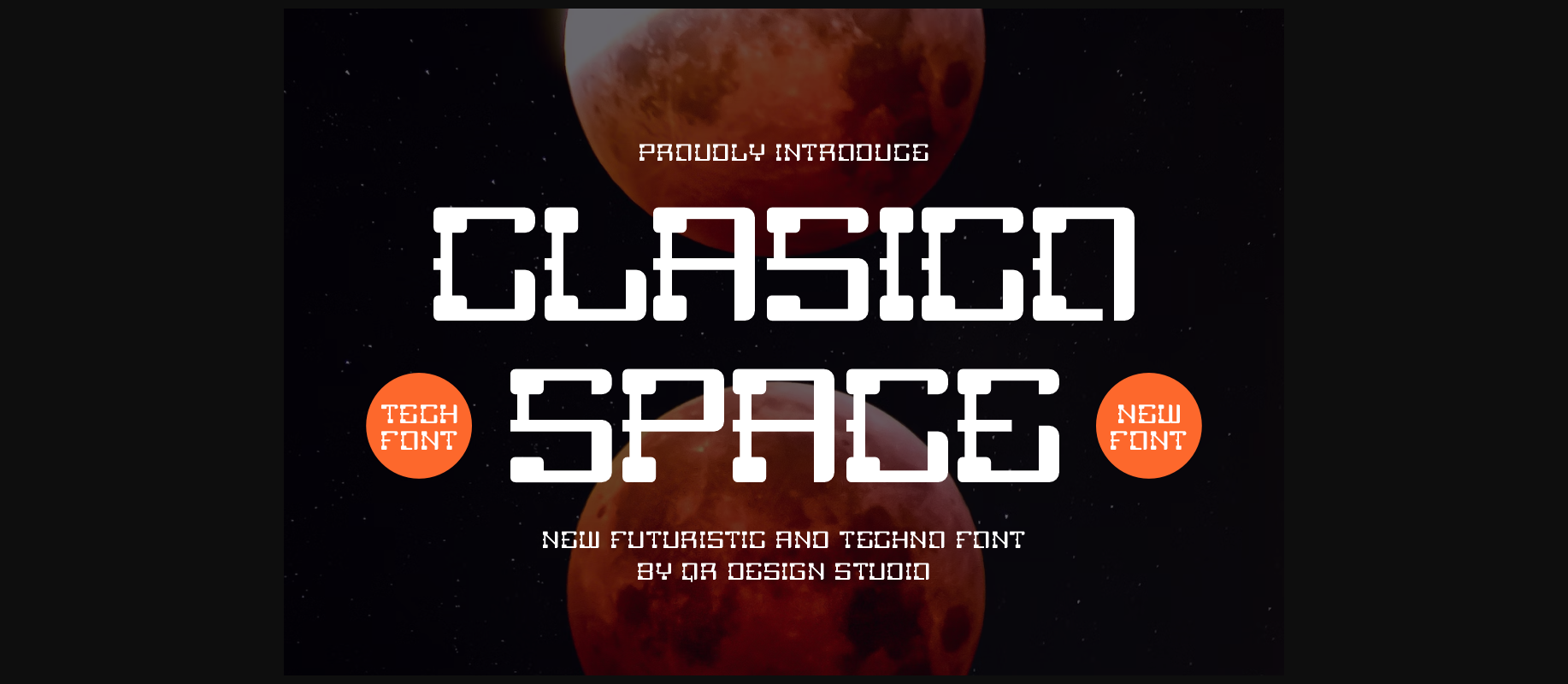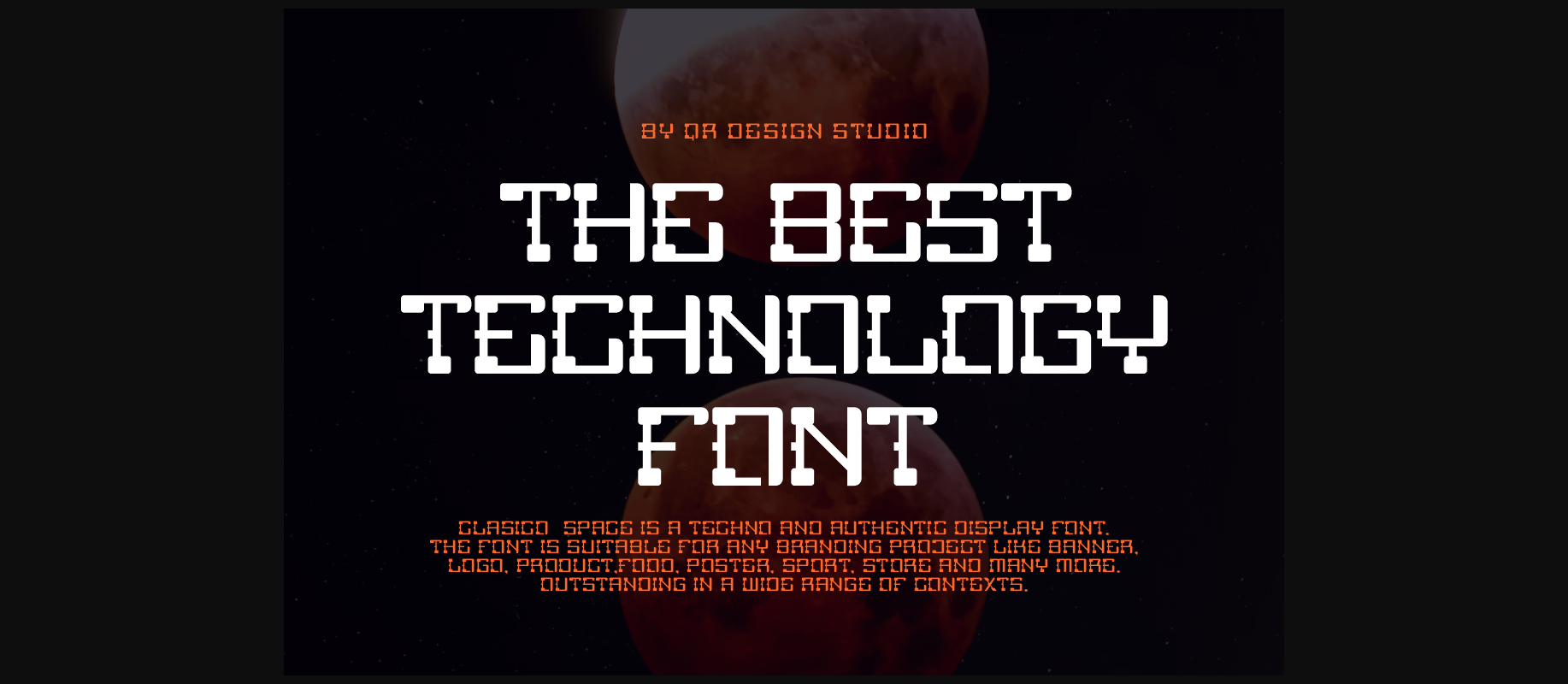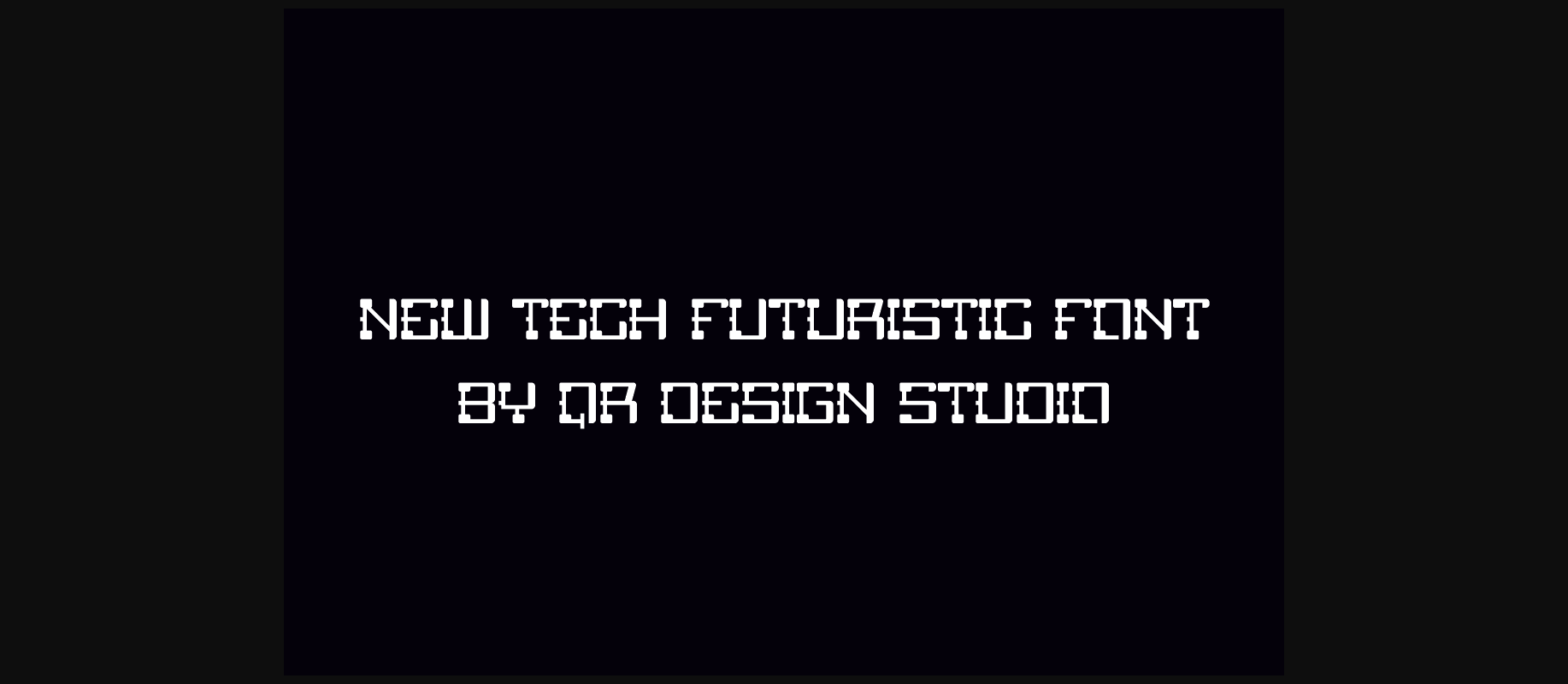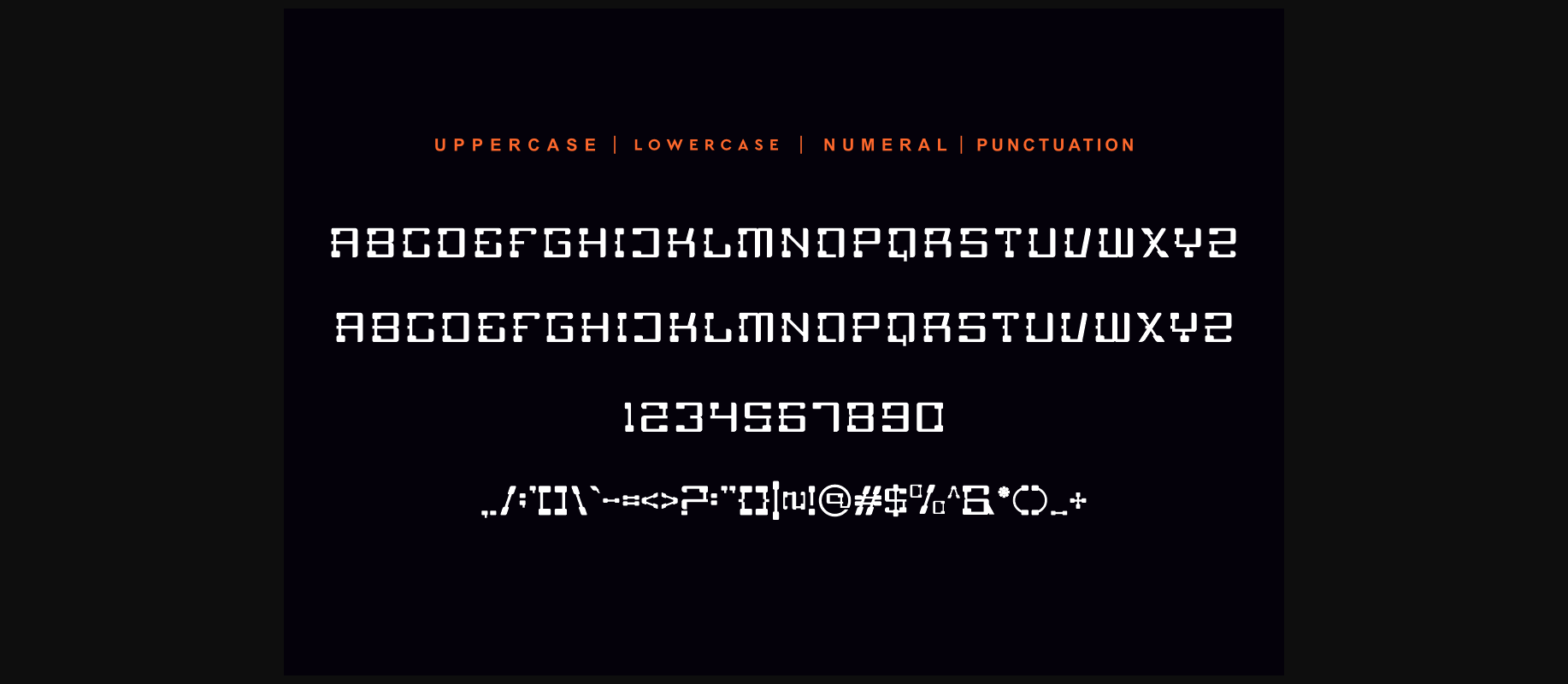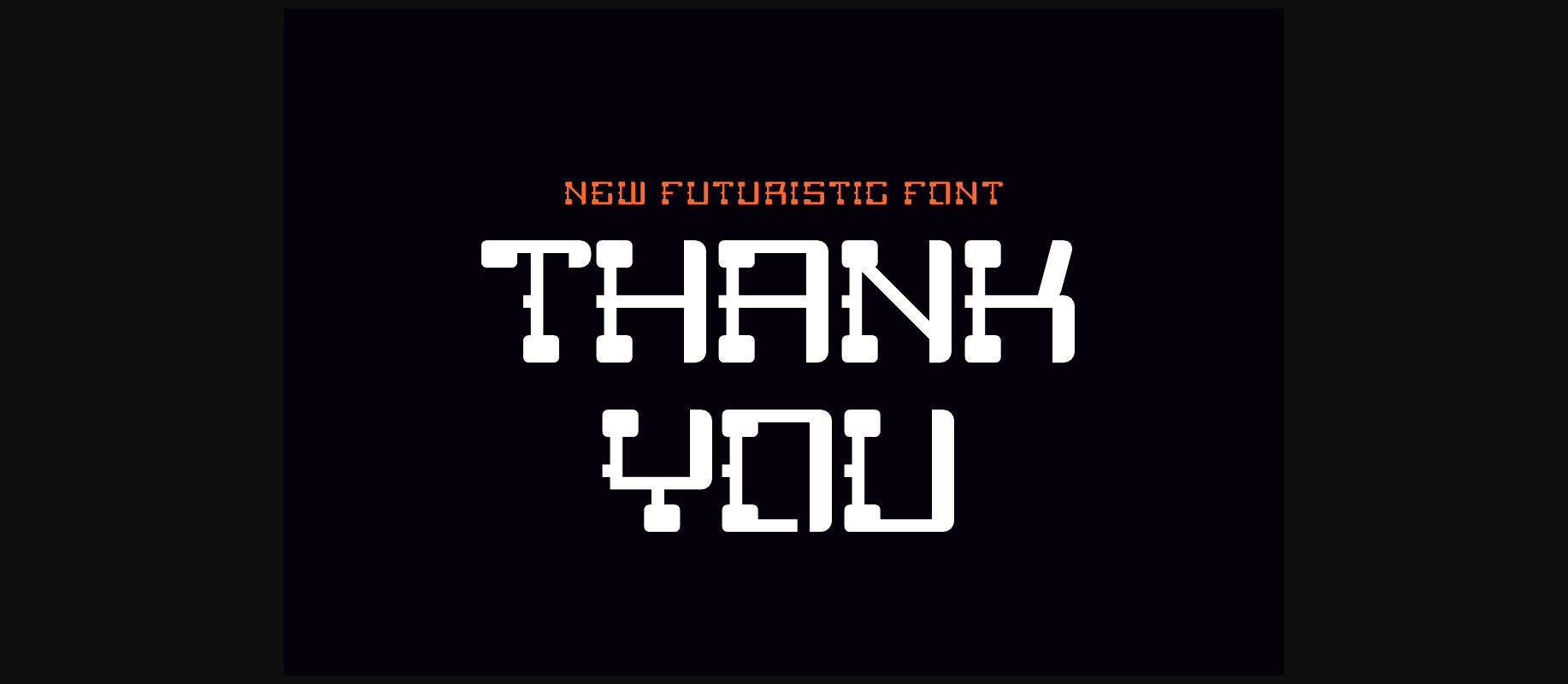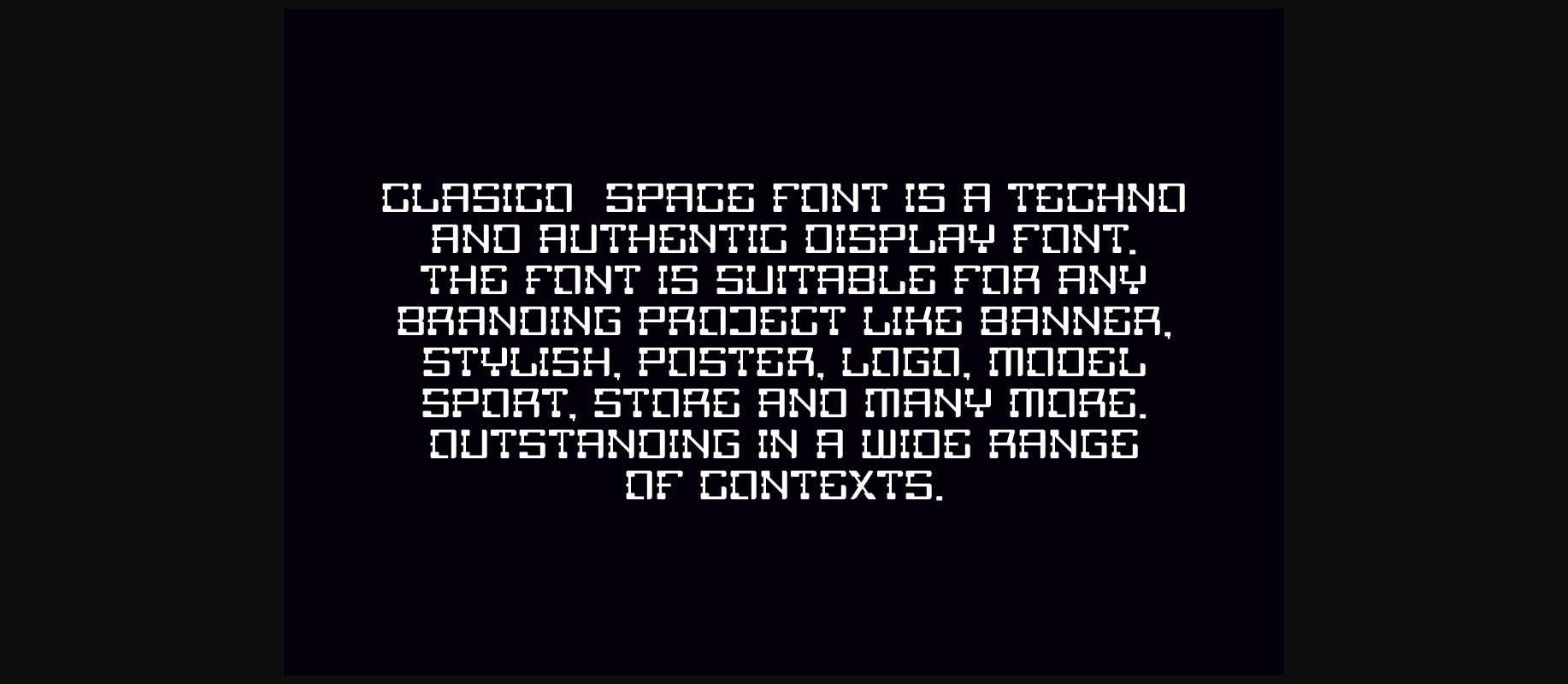
HomeDecorative FontsClasico Space Font Decorative Fonts Clasico Space Font FacebookXPinterestWhatsApp 1 of 8 ... Clasico Space Font Poster 2... Clasico Space Font Poster 3... Clasico Space Font Poster 4... Clasico Space Font Poster 5... Clasico Space Font Poster 6... Clasico Space Font Poster 7... Clasico Space Font Poster 8... About Clasico Space Font Clasico Space is a unique and interesting decorative font. A little bit quirky, this font looks incredibly adept on a wide variety of contexts! DOWNLOAD NOW People also explored Barbara Font Ashaal Script Font Nawarty Font Handwriting Font Sweet Maple Font Minke Font Stuart Collins Font Problack Font Snowflake Font 355 0 TagsClasico Space Font Previous articleBleno College FontNext articleBright Cupid Font LEAVE A REPLY Cancel reply Comment: Please enter your comment! Name:* Please enter your name here Email:* You have entered an incorrect email address! Please enter your email address here Website: Save my name, email, and website in this browser for the next time I comment. Personal Use Free Fifty Five Personal Use Free Read more about this font Cute Butterfly Personal Use Free Read more about this font Romansya Personal Use Free Read more about this font England Personal Use Free Read more about this font BLOG How to Install and Use Fonts on Windows, macOS, and Web Projects How to Install and Use Fonts on Windows, macOS, and Web Projects Fonts are a crucial part of design and branding. Whether you’re designing a... Where to Buy American Fonts Online in 2024 Best Fonts for T-Shirt Design – Top 2025 Picks Transform Your Website: Elevate Your Typography with 7 Best Web Font Generators